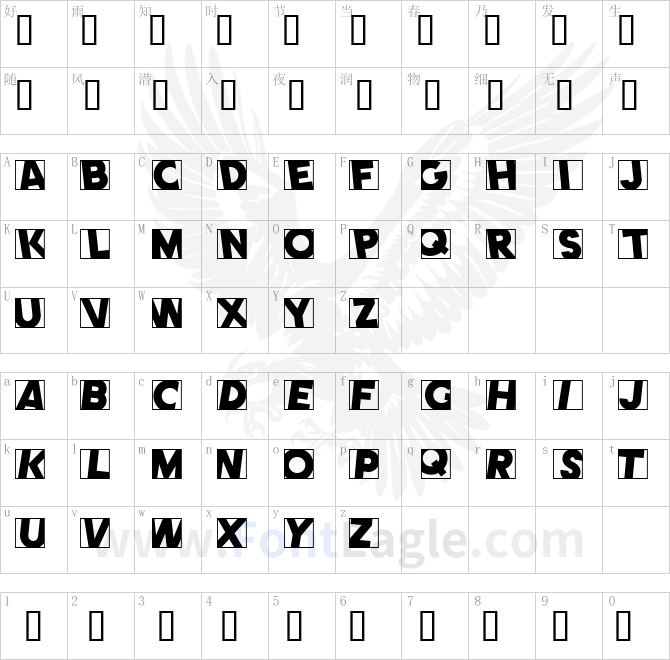
- Font name:Comet
- Font Subfamily:Positive
- Font Subfamily ID:Macromedia Fontographer 4.1.3 Comet Positive
- Font Full Name:Comet Positive
- Postscript:CometPositive
- Font Copyright:Comet Positive computer font ©2000 Harold Lohner (HLohner@aol.com • http://members.aol.com/fontner) Inspired by the logo of Country Music Television (CMT)